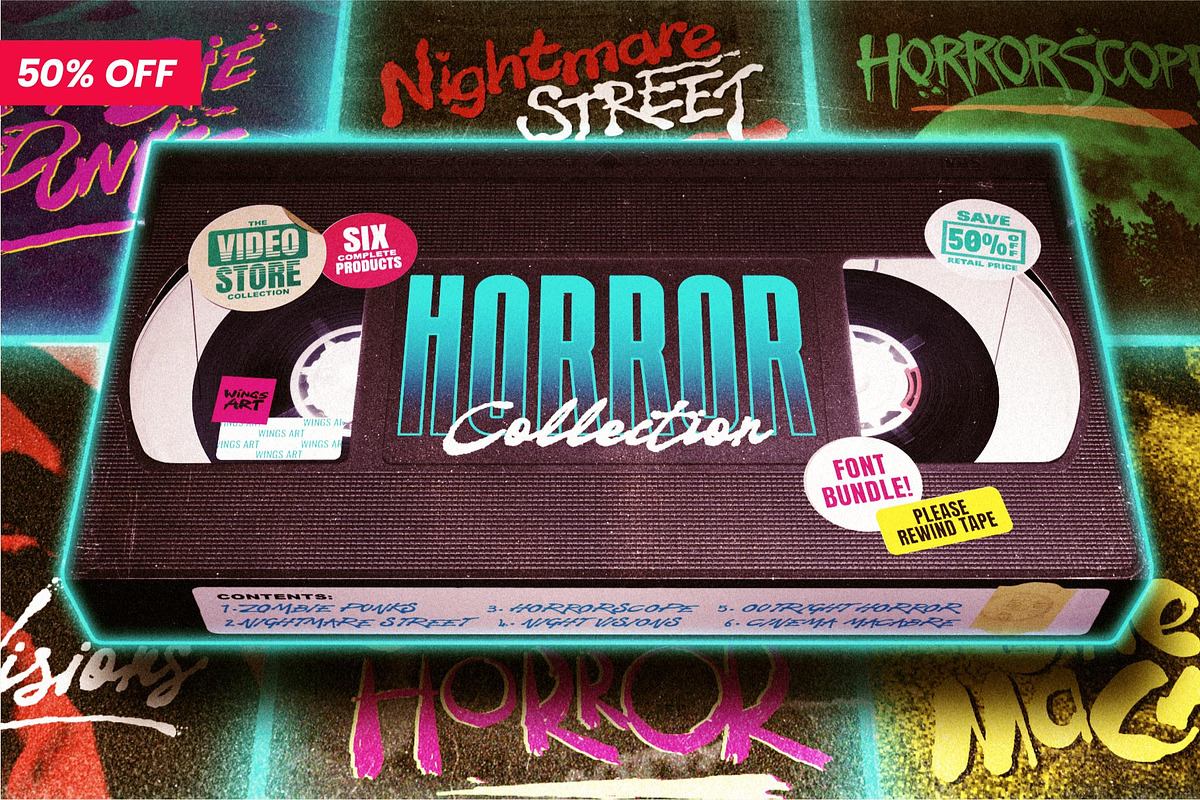
The VHS Horror Font Bundle Free Download
The VHS Horror Font Bundle Free Download is a collection of spooky, retro-inspired fonts designed to evoke the eerie and nostalgic vibes of old VHS horror movies. This bundle includes a variety of unique fonts, each with distressed, grungy details, perfect for Halloween-themed designs, horror film posters, vintage TV shows, game designs, and anything that needs a touch of creepy nostalgia.
Whether you're creating designs for a haunted house, spooky event, or retro horror-themed project, this bundle offers multiple fonts that bring both vintage charm and a chilling atmosphere to your typography.